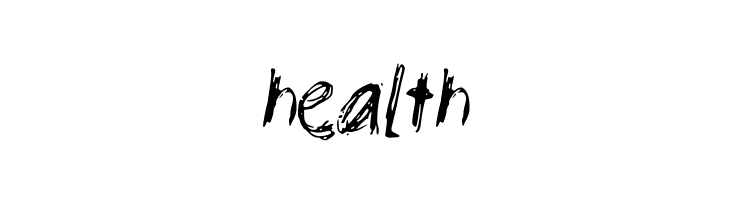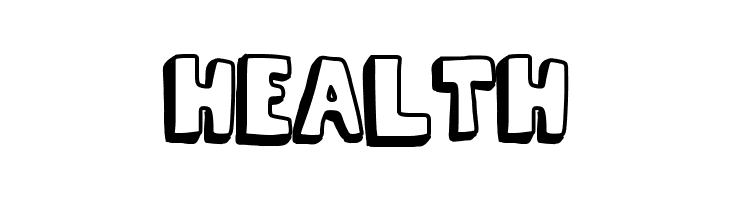
( Fonts by Kellyn B )
A playful, bold handwritten font with rounded, consistent strokes.
( Fonts by Kelvin )
A playful, casual handwritten font with uneven strokes and a friendly appearance.
( Fonts by Vanessa Bays - bythebutterfly.com )
A playful, handwritten font with fluid, flowing letterforms and a casual style.
( Fonts by Mans Greback - www.mawns.com )
A modern, geometric font with consistent stroke width and clear readability.
( Pim Kerssemakers - pimkerssemakers.nl )
A classic serif font with a vintage touch and elegant detailing.
( greenlaces.tumblr.com )
A bold, handwritten font with a playful and chaotic style.
( Fonts by Geronimo )
A bold, cartoonish font with thick, rounded outlines and a playful style.
A bold, cartoonish font with thick, rounded edges and a playful style.